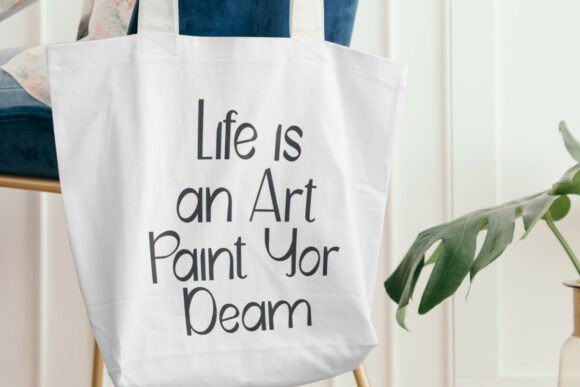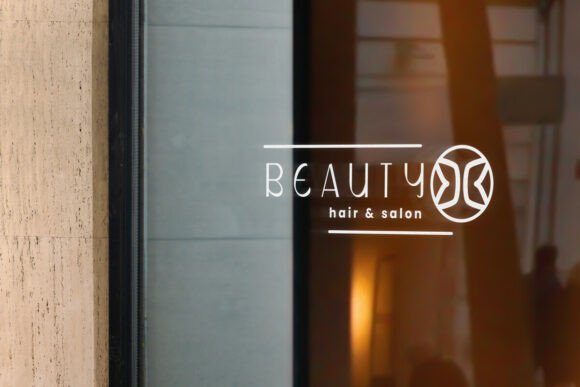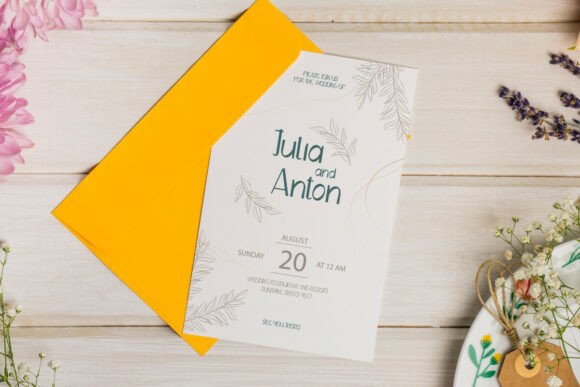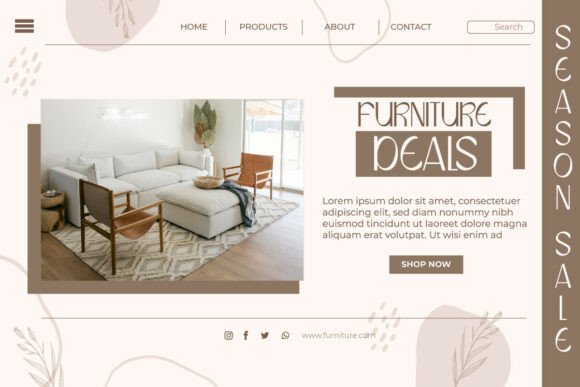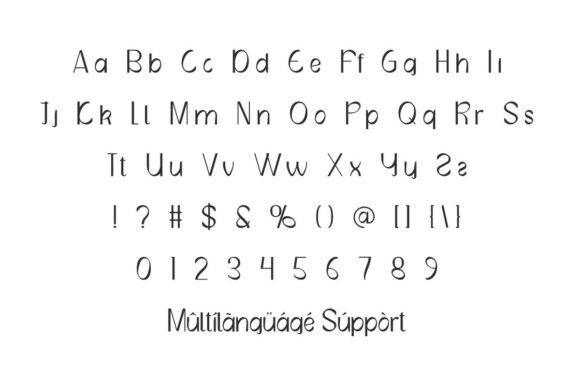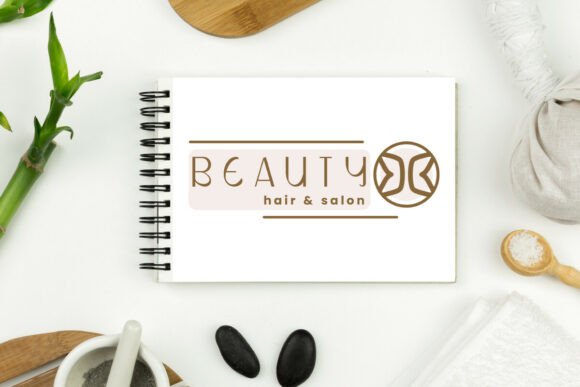
Introducing Atarola Font: The Epitome of Elegance and Sophistication
In the realm of typography, few fonts manage to strike a balance between minimalism and decorative flair as effortlessly as Atarola. This sleek and sophisticated display sans-serif typeface has been turning heads with its unique blend of geometric structure and elegant, high-contrast curves. Atarola is not just a font; it’s an experience, a statement of style and refinement that elevates any design to new heights.
The Anatomy of Atarola
Atarola’s design is characterized by its tall, slender stems that exude a sense of elegance and poise. These stems are perfectly complemented by softly rounded terminals, which add a touch of warmth and approachability to the font. This harmonious marriage of straight and curved lines results in a typeface that is both visually striking and endlessly versatile.
A Distinctive yet Readable Choice
One of the standout features of Atarola is its stylized lowercase “a” and “r”, which introduce a subtle retro-modern touch to the font. These distinctive letterforms not only make Atarola instantly recognizable but also add a layer of depth and character to any text. Despite its unique personality, Atarola remains remarkably readable, making it an excellent choice for a wide range of design applications.
Ideal Applications for Atarola
Atarola’s elegance and sophistication make it the perfect fit for designs that demand a high level of refinement. Some of the ideal applications for Atarola include:
• Fashion Branding: Atarola’s sleek lines and artistic letterforms make it an excellent choice for fashion brands looking to make a statement.
• Editorial Headlines: Add a touch of glamour to your editorial spreads with Atarola’s sophisticated and eye-catching letterforms.
• Beauty Packaging: Elevate your beauty brand with Atarola’s elegant and refined typography, perfect for product labels and packaging.
• Upscale Logos: Create a lasting impression with Atarola’s unique and sophisticated letterforms, ideal for logos that demand attention.
A Versatile Choice for Digital and Print Designs
Atarola’s clean lines and artistic letterforms make it a versatile choice for both digital and print designs. Whether you’re working on a website, social media graphics, or print materials, Atarola adapts seamlessly to any medium. Its modern edge ensures that your designs stay fresh and relevant, while its elegant aesthetic guarantees a lasting impression.
Why Choose Atarola?
With so many fonts available, why choose Atarola? The answer lies in its unique combination of style, sophistication, and versatility. Atarola is not just a font; it’s a design statement that:
• Combines geometric structure with elegant curves
• Offers a perfect balance between minimalism and decorative flair
• Boasts distinctive yet readable letterforms
• Is ideal for a wide range of design applications
In conclusion, Atarola is a font that truly has it all. Its sleek and sophisticated design makes it perfect for designers and crafters looking to elevate their projects with a touch of elegance and refinement. Whether you’re working on fashion branding, editorial headlines, beauty packaging, or upscale logos, Atarola is the perfect choice. So why settle for ordinary when you can have extraordinary? Choose Atarola and experience the power of elegant typography.